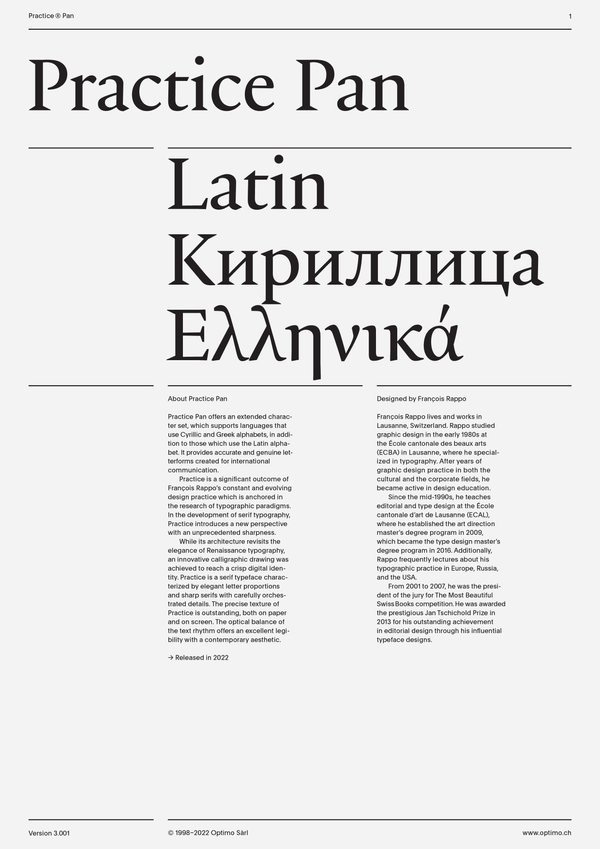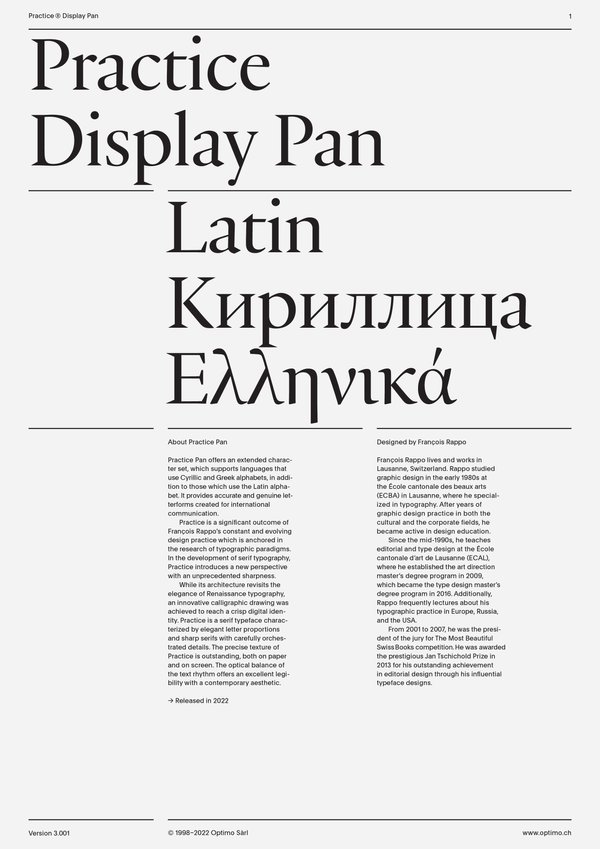
Practice Display Pan
Practice Pan
Case Sensitive Forms
All Caps [cpsp]
Case Sensitive Forms [case]
This function formats the text in uppercase and adjusts spacing between all capital letters. It also applies the ‘Case Sensitive Forms’ feature which replaces certain characters with alternates that are better suited for all capital text, especially related to punctuation.
Contextual Alternates
Contextual Alternates [calt]
This feature adapts the position of a glyph after its surrounding context. For instance, a dash placed between two uppercase letters or numbers will be replaced by an uppercase version of the dash, slightly higher. This feature is usually active by default in Adobe applications.
Alternate p
Stylistics Set 1 [ss01]
This feature replaces glyph(s) with stylistic alternate(s).
Bulgarian alternates
Stylistic Set 3 [ss03]
This feature activates alternative letters used in Bulgarian language.
Macedonian and Serbian alternates
Stylistic Set 4 [ss04]
This feature activates the alternative “be” letter used in Serbian language.
Serbian alternates [italics only]
Stylistic Set 5 [ss05]
This feature activates alternative italic letters used in Serbian language.
Alternate к ж қ җ К Ж Қ Җ
Stylistic Set 9 [ss09]
This feature replaces glyph(s) with stylistic alternate(s).
Alternate к ж қ җ К Ж Қ Җ and Small Caps
All Small Caps [c2sc]
Small Caps [smcp]
This feature formats the text from lowercase or uppercase to small caps. Depending on the software used, lowercase may be affected only when a word starts with a capital.
Stylistics Set [ss09]
This feature replaces glyph(s) with stylistic alternate(s).
Alternate Q
Stylistics Set 10 [ss10]
This feature replaces glyph(s) with stylistic alternate(s).
Historical long s
Stylistic Set 7 [ss07]
This feature replaces glyph(s) with stylistic alternate(s).
Tabular Lining Figures
Tabular Lining Figures [tnum–lnum]
Based on the proportions of the capitals, lining figures have an invariable height. With the combination of the tabular spacing format, the width of each numeral is uniformized. This feature is useful when numerals need to all lined up. It facilitates the reading of numbers set within columns or tables. As some applications don’t have access to this feature, proportional figures are set as the default choice.
Proportional Oldstyle Figures
Proportional Oldstyle Figures [pnum–onum]
Based on the design of the lowercase, oldstyle figures have varying ascenders and descenders. Like most of the letters, each number has an appropriate width based on its shape. The combination of oldstyle figures with proportional setting generate numerals perfectly adapted for text.
Tabular Oldstyle Figures
Tabular Oldstyle Figures [tnum–onum]
Based on the design of the lowercase, oldstyle figures have varying ascenders and descenders. With the combination of the tabular spacing format, the width of each numeral is uniformized. This feature is useful when numerals need to all lined up. It facilitates the reading of numbers set within columns or tables.
Lowercase math symbols
Stylistic Set 6 [ss06]
This feature activates alternate lowercase positioning of mathematical symbols.
All Optimo fonts have at least three basic pre-built fractions (1/2, 1/4, 3/4).
This feature replaces any letter following a numeral with its matching superior letters. French language uses the ordinal indicators such as ‘er’ for 1er premier, while Spanish, Portuguese and Italian require the feminine and masculine ordinals ‘a,’ ‘o’ for 1º, 1ª. Ordinals are designed to match the weight of the typeface.
Ampersand alternate [italics only]
Stylistics Set 8 [ss08]
This feature replaces glyph(s) with stylistic alternate(s).
While its architecture revisits the elegance of Renaissance typography, an innovative calligraphic drawing was achieved to reach a crisp digital identity. Practice is a serif typeface characterized by elegant letter proportions and sharp serifs with carefully orchestrated details. The precise texture of Practice is outstanding, both on paper and on screen. The optical balance of the text rhythm offers an excellent legibility with a contemporary aesthetic.